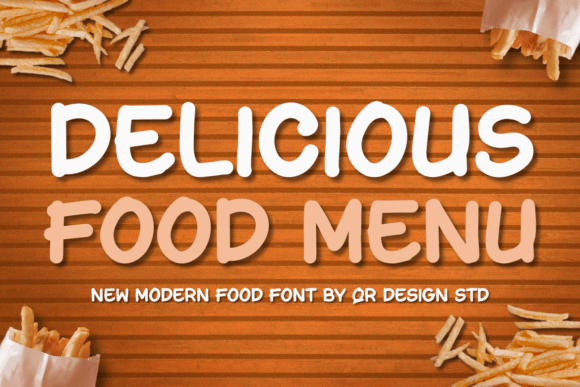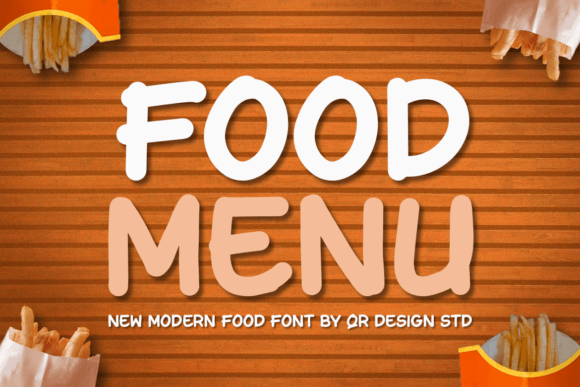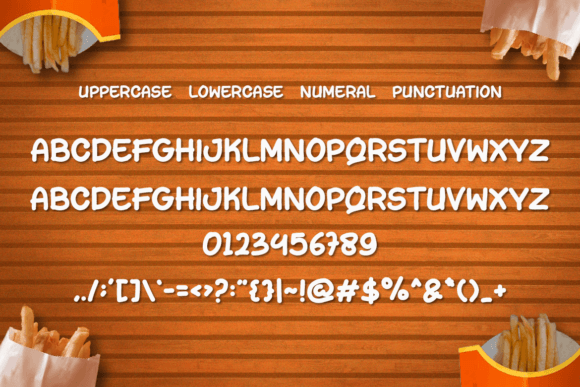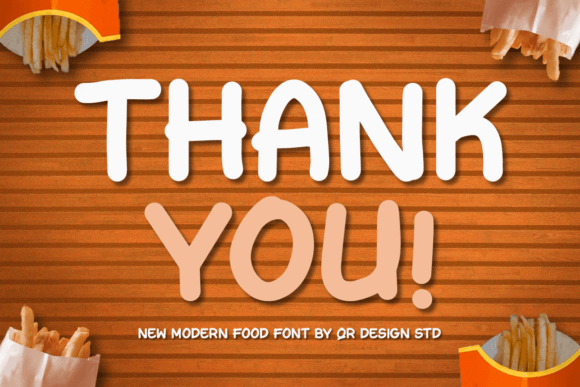
Introduction to Junk Food Font Font
Fonts play a crucial role in design, and the Junk Food Font font is a typeface that brings both character and versatility to any project. Whether you’re working on a branding project, a website, or a print design, the Junk Food Font font offers a unique style that can elevate your work.
Junk Food is a fun and playful handwritten font.
Add it to your crafty ideas and you will love the results .
The Junk Food Font font is more than just a typeface – it’s a design tool that helps you communicate your message with style and clarity. Its unique character set and versatile design make it suitable for a wide range of applications, from elegant invitations to bold headlines.
With its carefully crafted letterforms and balanced proportions, the Junk Food Font font ensures readability and visual appeal across all mediums.
The Junk Food Font font stands out with its unique design, exceptional readability, and versatility across various design applications.